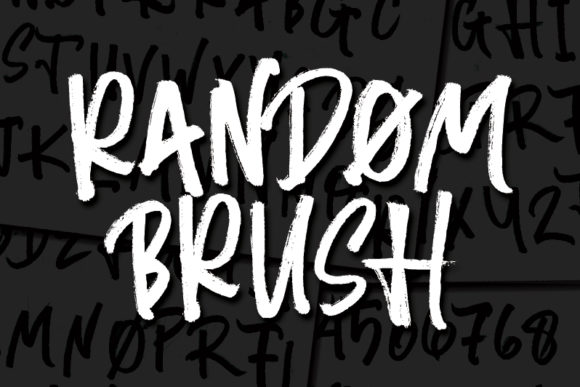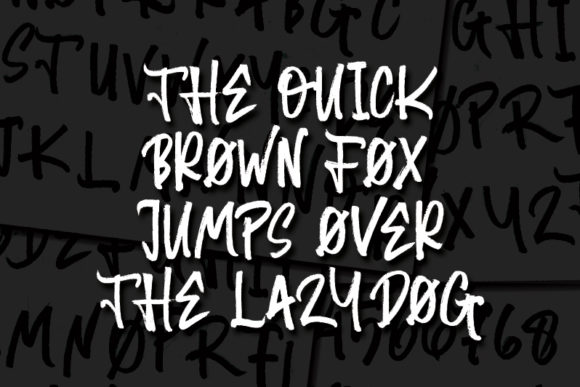
HomeScript FontsRandom Brush Font Script Fonts Random Brush Font FacebookXPinterestWhatsApp Random Brush Font Poster 2 About Random Brush Font Random Brush is a textured brush font with an authentic vibe. Get inspired by its cool vibe! DOWNLOAD ON CREATIVE FABRICAThis font is sold and delivered by Creative Fabrica. Font Canyon may earn a commission if you buy through this link. People also explored Gaterfly Mondy Font Tightones Font Retta Font Lovely Balloon Font Brangko Font Monage Font Billyjo Font Portsmouth Second Fleet Claw White Tiger Font 480 0 TagsRandom Brush Font Previous articleEnforce Justice FontNext articleSwirly Kids Font LEAVE A REPLY Cancel reply Comment: Please enter your comment! Name:* Please enter your name here Email:* You have entered an incorrect email address! Please enter your email address here Website: Save my name, email, and website in this browser for the next time I comment. Personal Use Free Bakk Trieng Personal Use Free Read more about this font Wondery Personal Use Free Read more about this font Heart Memory Personal Use Free Read more about this font Rogueland Personal Use Free Read more about this font BLOG The 10 Best Handwriting Fonts to Add Personality to Your Designs 10 of the Best Handwriting Fonts for Adding Personality to Your Designs There will undoubtedly be no other better choice than handwriting fonts to give... How to Install and Use Fonts on Windows, macOS, and Web Projects Best Fonts for T-Shirt Design – Top 2025 Picks Elegant Wedding Invitation Fonts – Handwritten & Script Fonts